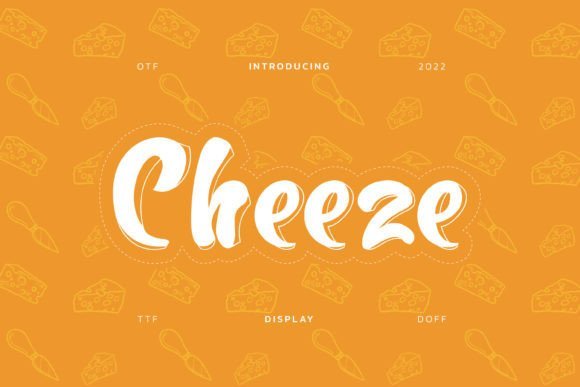
Meet Cheeze Font, a bubbly and delicious script display font designed to add a playful touch to your craft. With its effortless elegance, Cheeze Font makes it easy to create eye-catching designs that stand out from the competition. Whether you’re a seasoned designer or just starting out, Cheeze Font is a valuable addition to your toolkit, guaranteed to breathe new life into your projects.
Cheeze Font Key Features
- Unique Characteristics: Distinctive, hand-drawn feel with a mix of organic and geometric elements, giving it a unique and playful appearance
- Font Style: Available in Regular, Italic, Bold, and Bold Italic styles, providing flexibility for different design needs
- Language Support: Supports multiple languages, including Latin, Cyrillic, and Greek alphabets, making it suitable for international design projects
Designer Review: “Cheeze Font”
At first glance, “Cheeze Font” seems like a quirky and fun addition to any design project. The font’s bold, rounded edges and playful personality can add a touch of whimsy to your content. ✨
One of the strengths of “Cheeze Font” is its versatility. It works well in a variety of contexts, from titles and headings to body text and social media graphics. The font’s wide range of weights and styles also make it easy to customize and adapt to different design needs.
- ⚠️ Limited legibility in smaller font sizes: The font’s rounded edges and playful personality can make it difficult to read in smaller sizes, which may be a problem for designs that require a lot of body text.
- ⚠️ Overuse can be overwhelming: While “Cheeze Font” is fun and playful, using it too much can quickly become overwhelming and distracting. It’s best to use it sparingly to add a touch of whimsy to your design.
Overall, “Cheeze Font” is a solid choice for designers who want to add a playful touch to their projects. While it may have some limitations, its versatility and range of styles make it a great addition to any design toolkit.
Practical Application Guide for Cheeze Font
Tips for Getting the Most Out of Cheeze Font
For optimal results, use Cheeze Font in conjunction with bold or italic text to add emphasis. You can also use it to create eye-catching headlines or titles.
Cheeze Font is ideal for:
- Children’s products and entertainment
- Fun and playful advertising
Alternatives to Cheeze Font
Great Vibes is a playful, cursive font that’s perfect for adding a touch of whimsy to your designs. It’s great for use in headings, titles, and other text elements where you want to convey a sense of fun and friendliness.
Compared to Cheeze Font, Great Vibes has a more elegant and refined feel, making it a good choice for designs that need a bit of sophistication.
Amaranth
Amaranth is a bold, script font that’s ideal for use in headings, titles, and other text elements where you want to make a statement. It’s great for designs that need a bit of drama and flair.
Compared to Cheeze Font, Amaranth has a more dramatic and attention-grabbing feel, making it a good choice for designs that need to stand out.
Pacifico is a beautiful, script font that’s perfect for use in headings, titles, and other text elements where you want to convey a sense of elegance and sophistication. It’s great for designs that need a bit of refinement and polish.
Compared to Cheeze Font, Pacifico has a more refined and elegant feel, making it a good choice for designs that need to convey a sense of high-end quality.
Playfair Display is a luxurious, script font that’s ideal for use in headings, titles, and other text elements where you want to make a statement. It’s great for designs that need a bit of drama and flair.
The recommended line height for Cheeze Font is 1.2 to 1.5 times the font size. This will help ensure that the text is legible and visually appealing. You can adjust the line height to suit your design needs, but this range provides a good starting point.